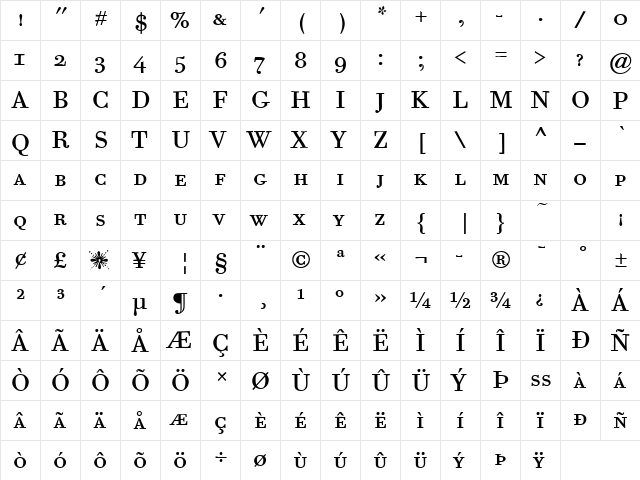
Bodoni Six SC ITC TT Book
Design Context for Bodoni Six SC ITC TT Typeface
Bodoni Six SC ITC TT is a composed and adaptable typeface that performs quietly and consistently across a wide range of design contexts.